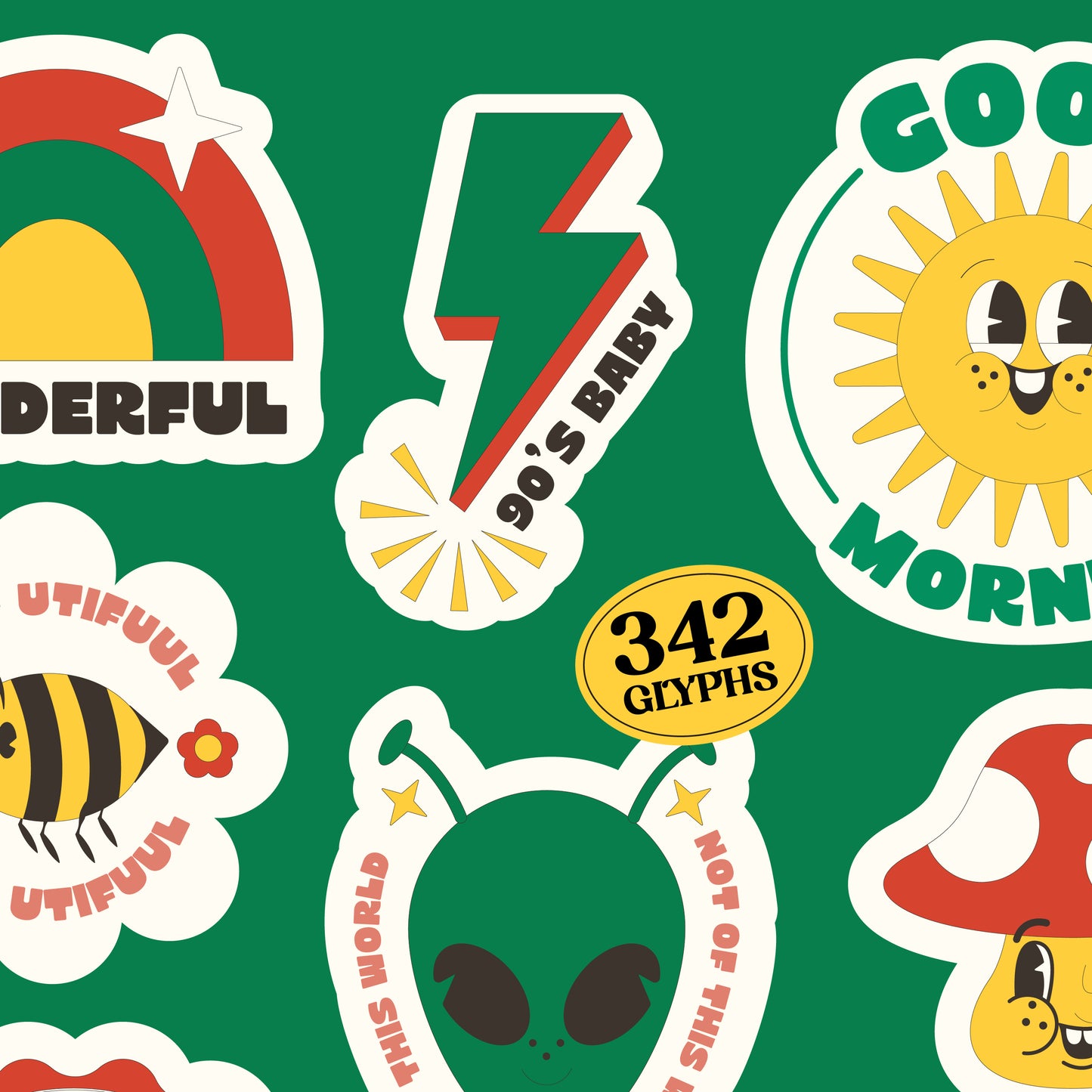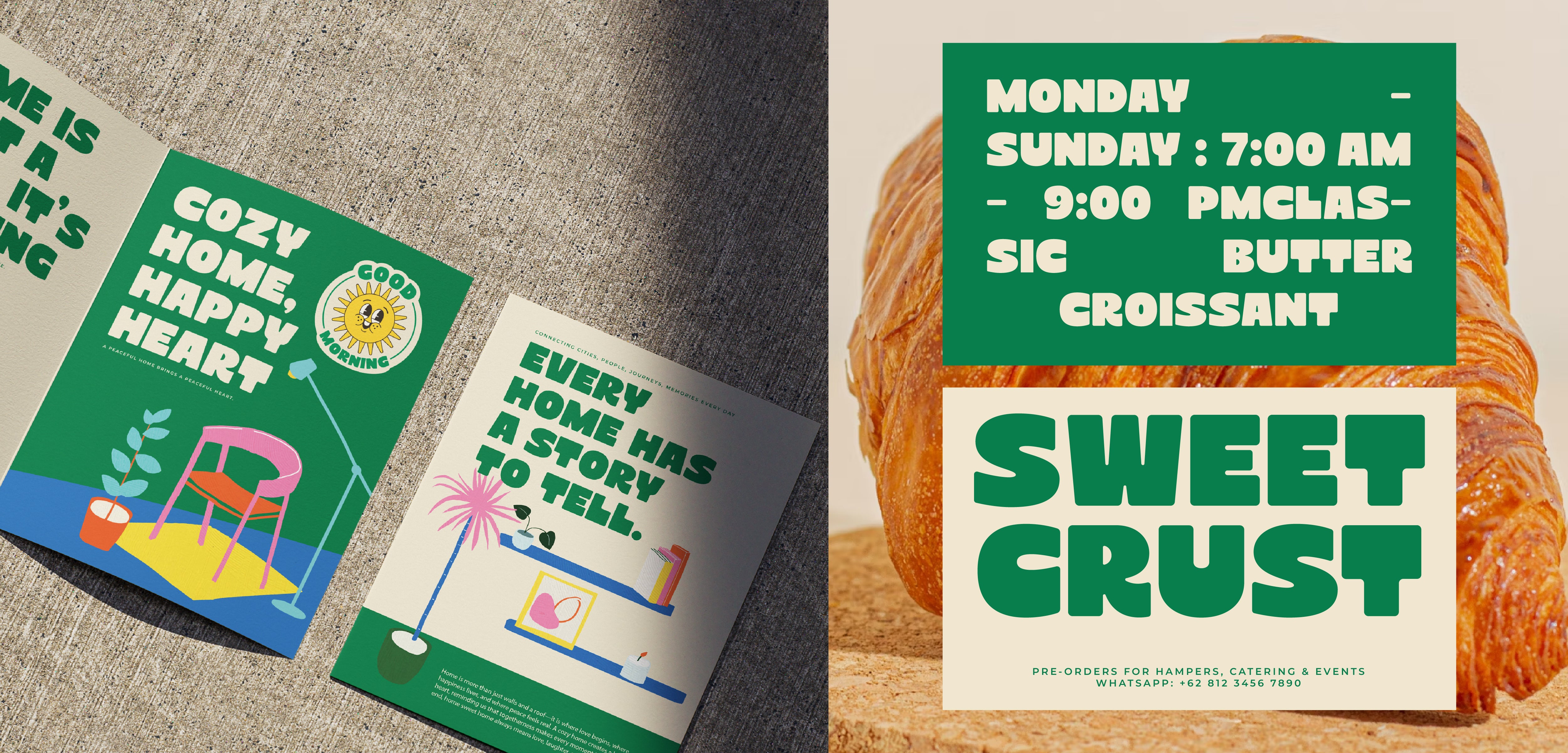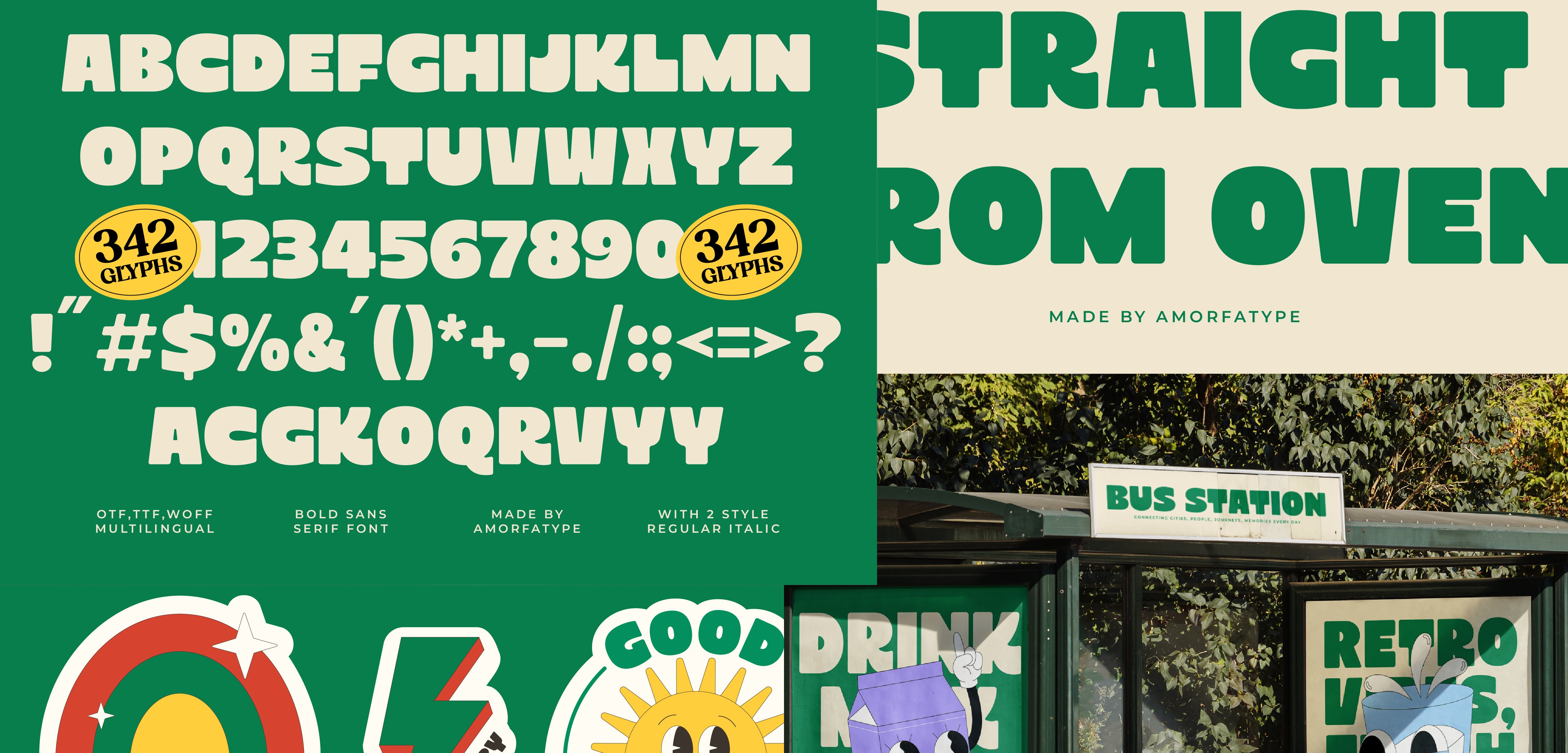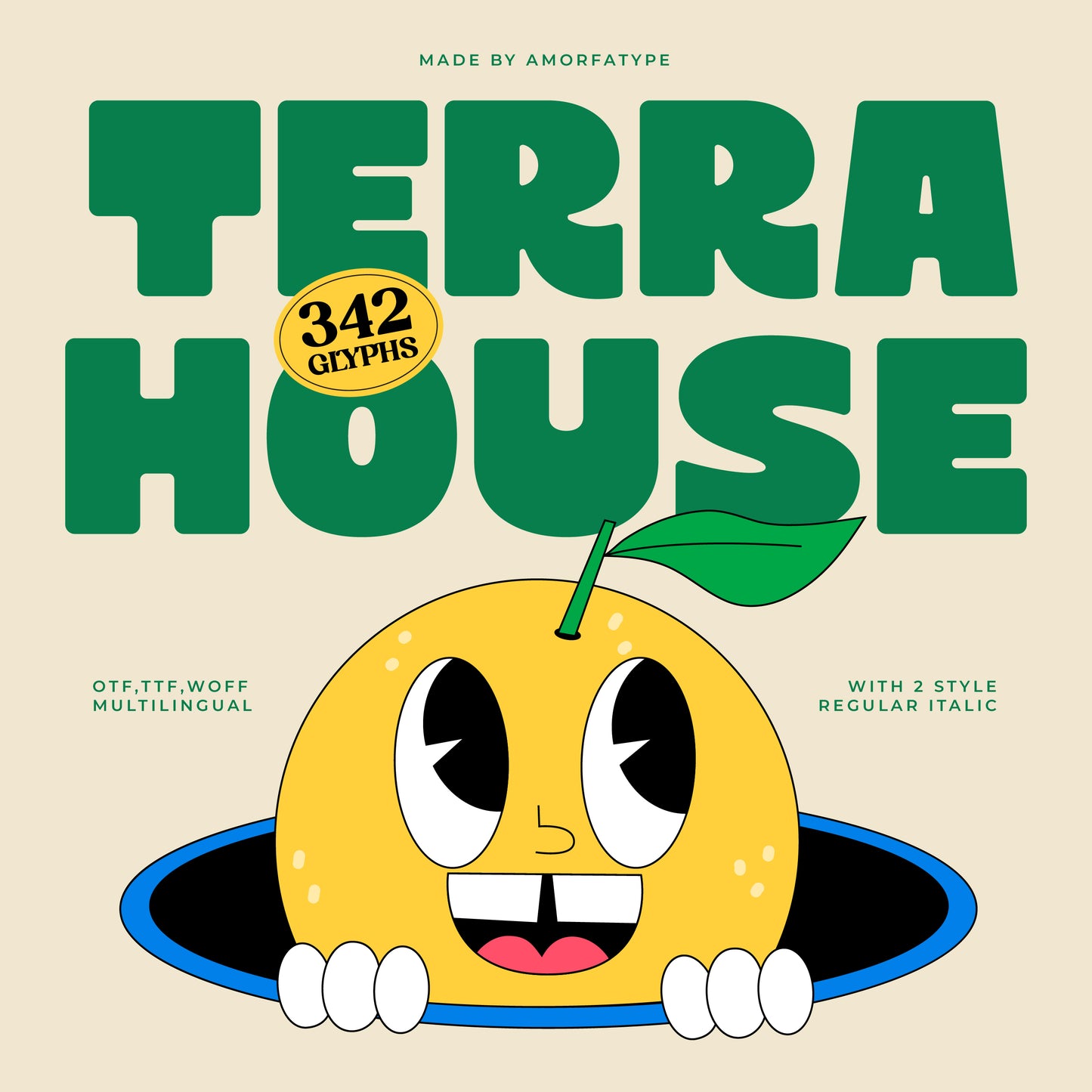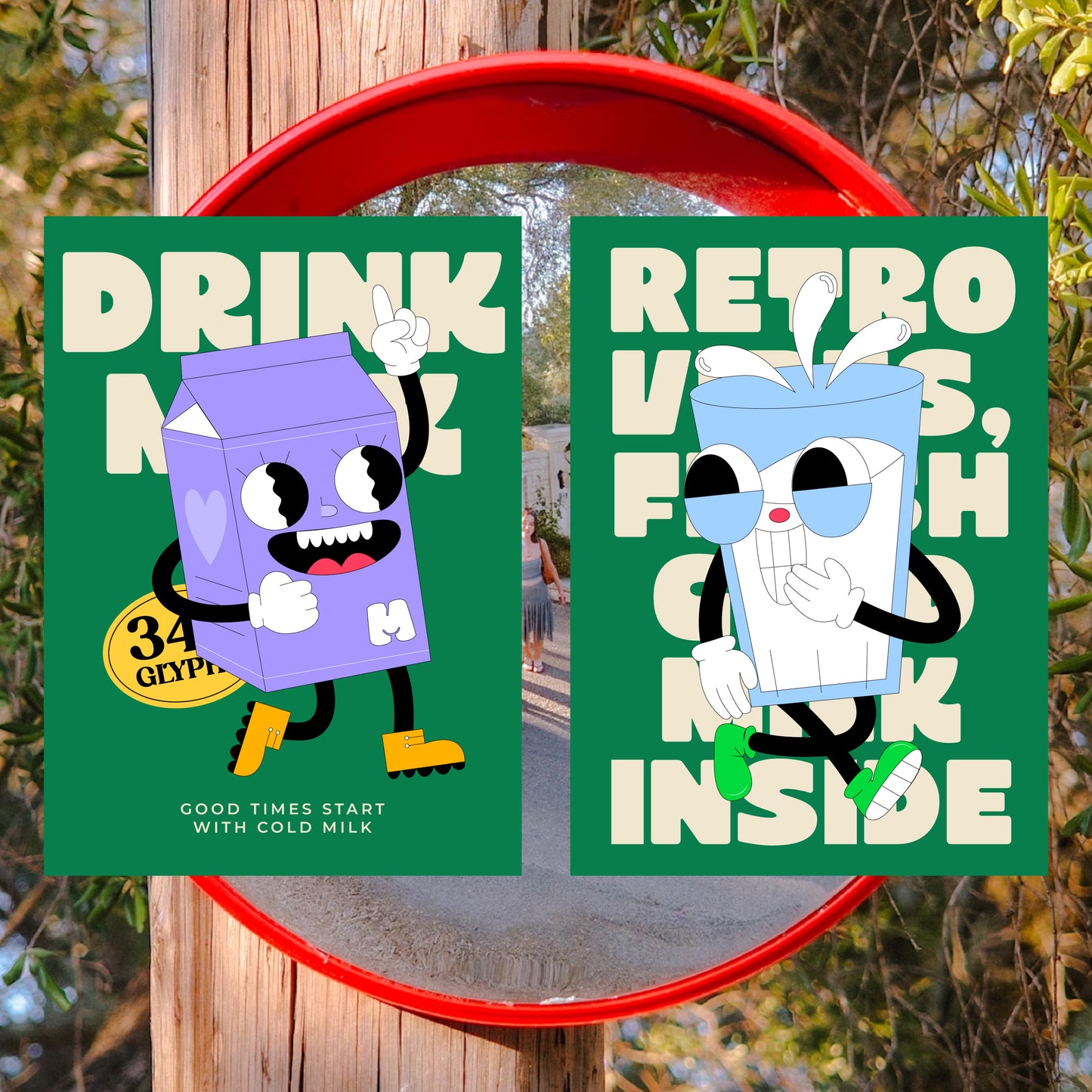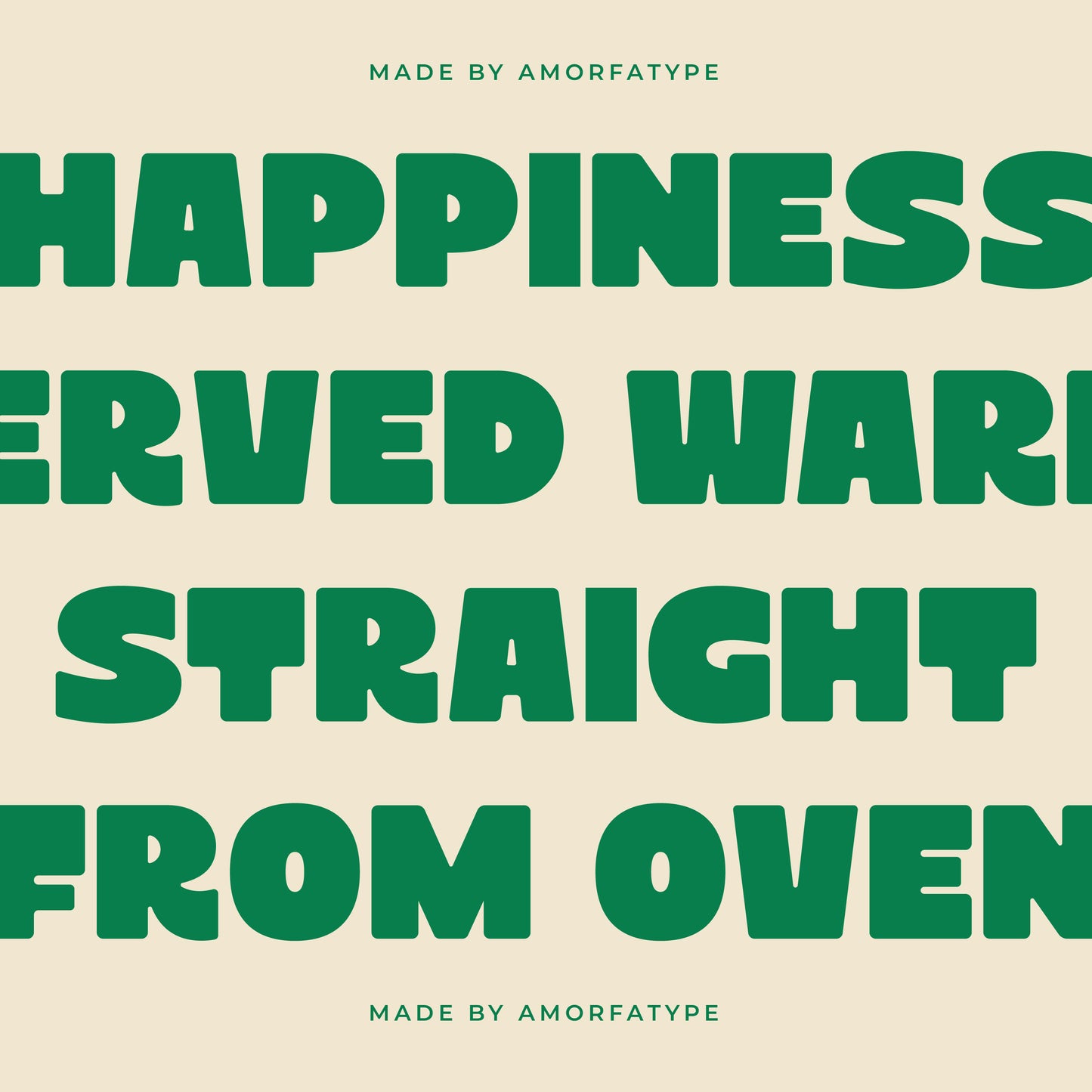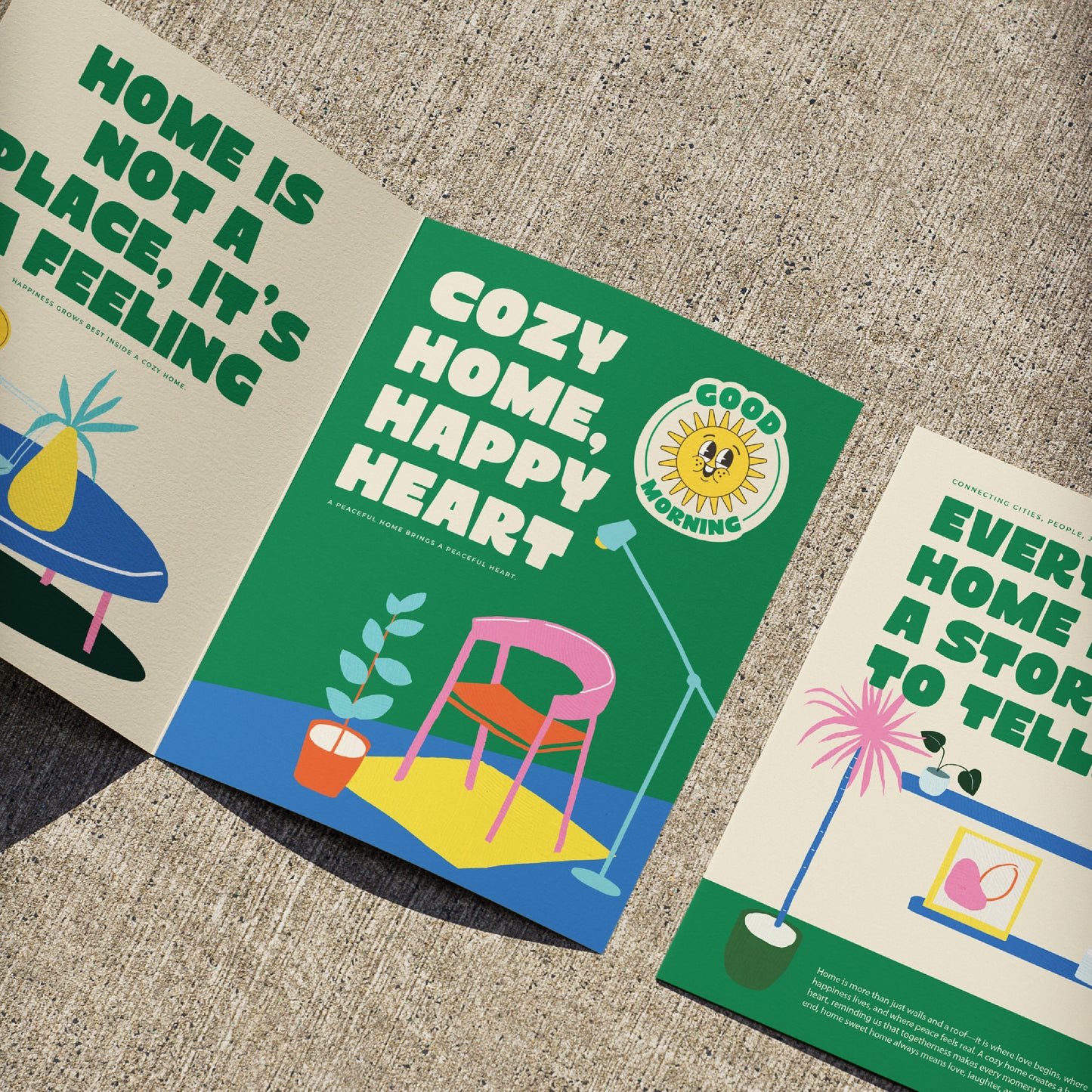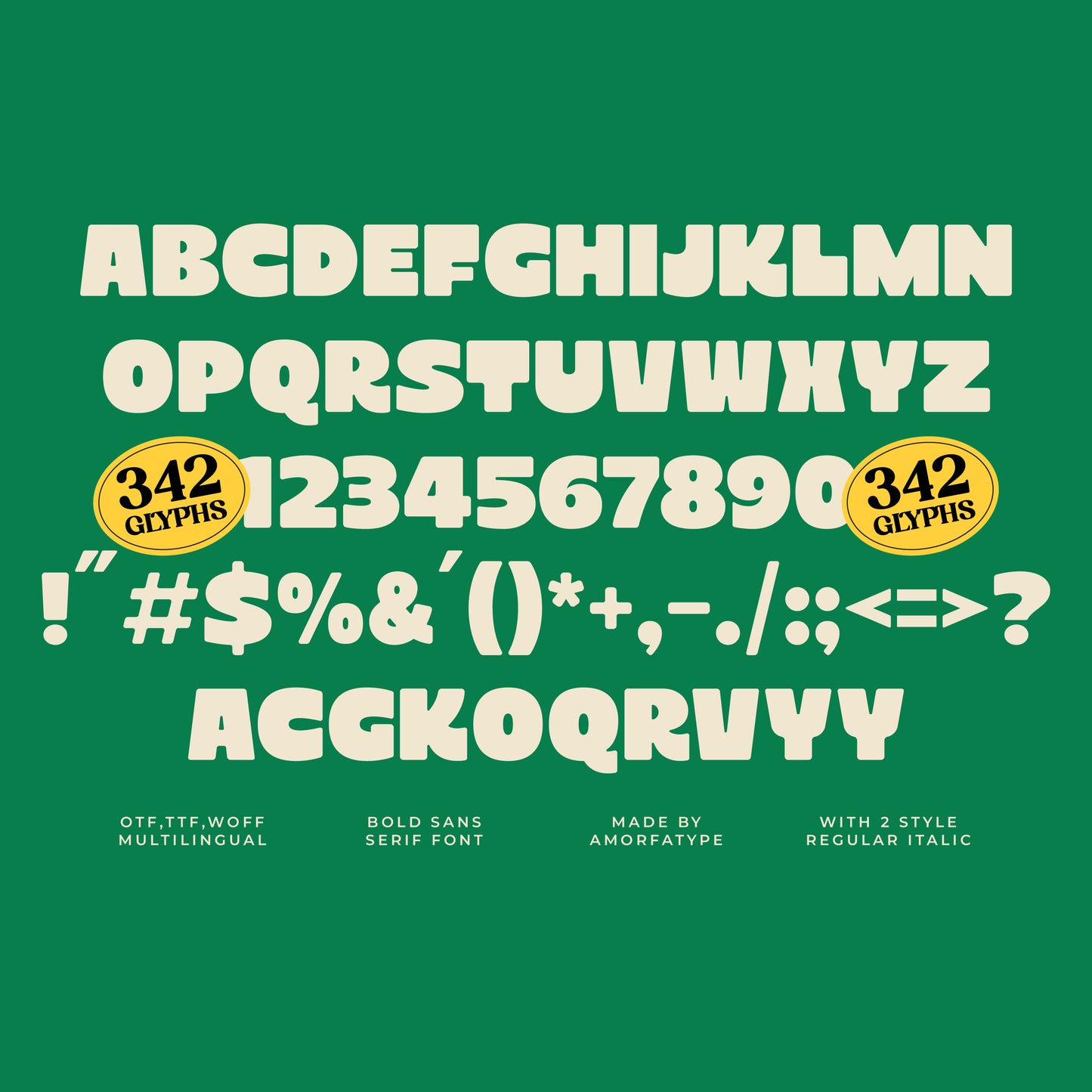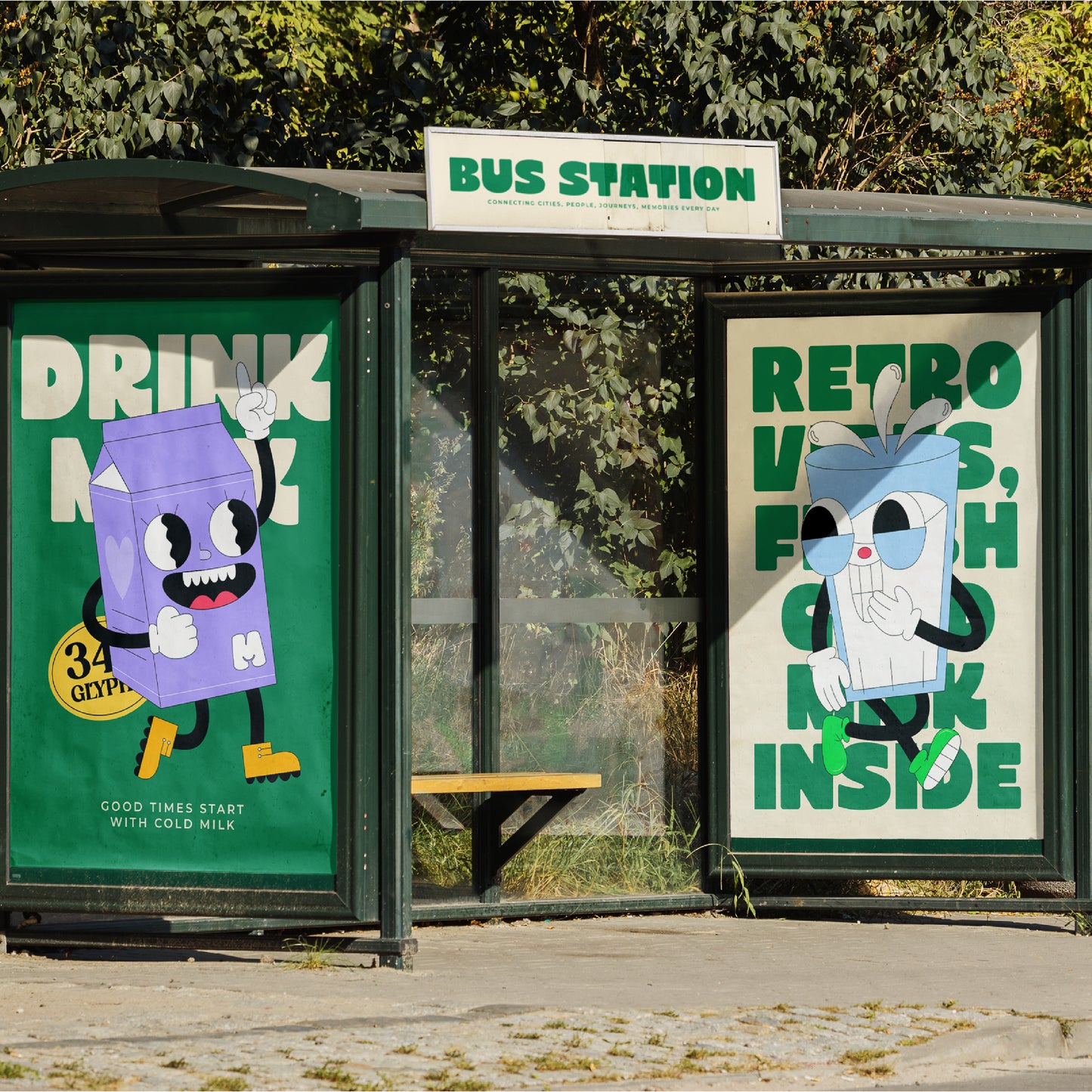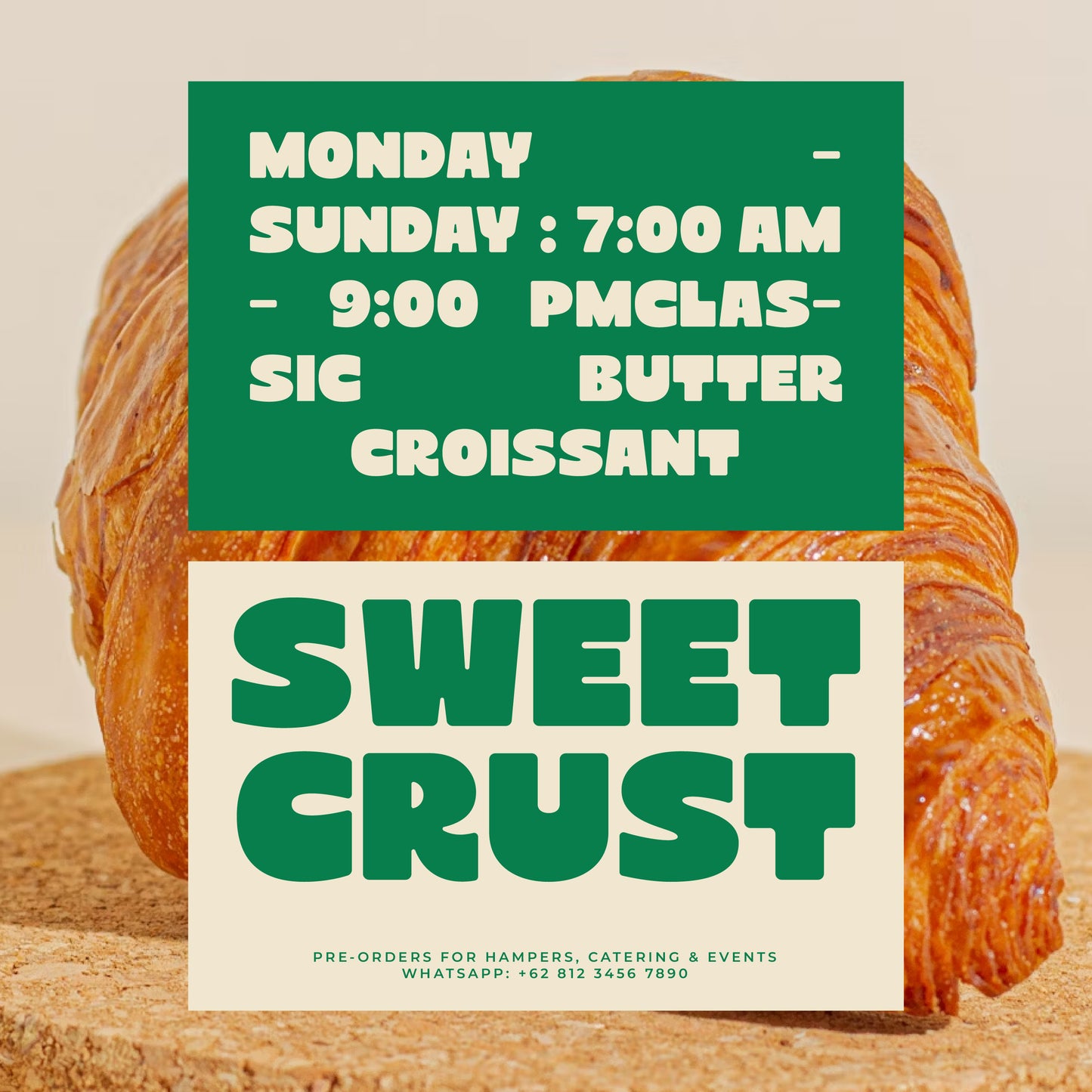
Terra House
Amorfatype
Terra House is a bold sans display font featuring soft, rounded forms—ideally used for good and beverage branding.
— LIGATURES & STYLISTIC ALTERNATES